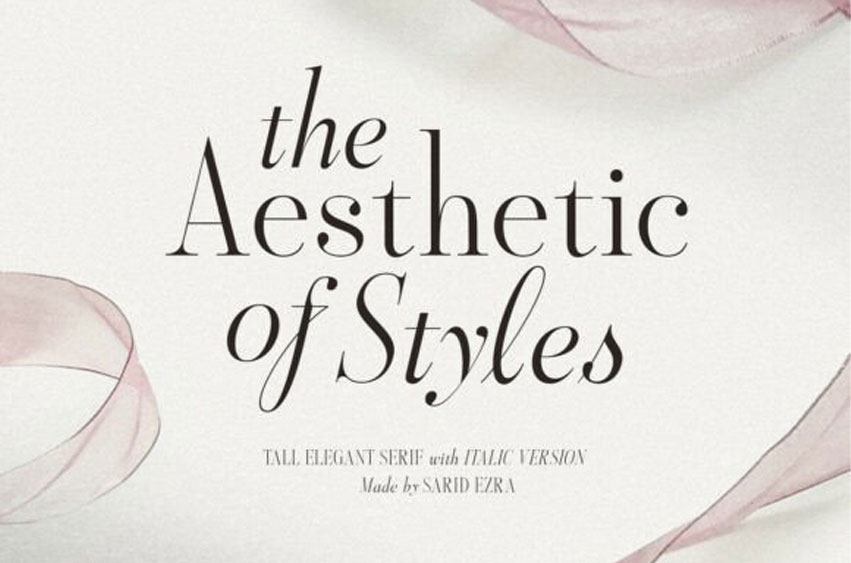
Aesthetic Styles Regular Font
Aesthetic Styles Regular Font is a tall, refined serif font with a delicate yet commanding presence. Its letterforms are slender and elongated, lending a sense of sophistication and modern grace. The font features high-contrast strokes and elegant curves, with italic variants that add fluidity and softness.
Distinctive elements, such as long, sweeping terminals and stylish ligatures, give it a fashion-forward and editorial feel. Its timeless elegance makes it ideal for luxury branding, beauty packaging, magazine layouts, and minimalist design concepts. Whether used in headings or logos, Aesthetic Styles exudes poise, femininity, and quiet confidence.